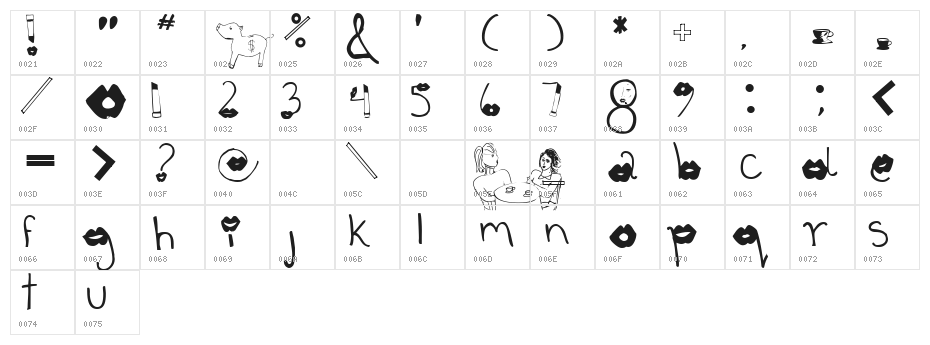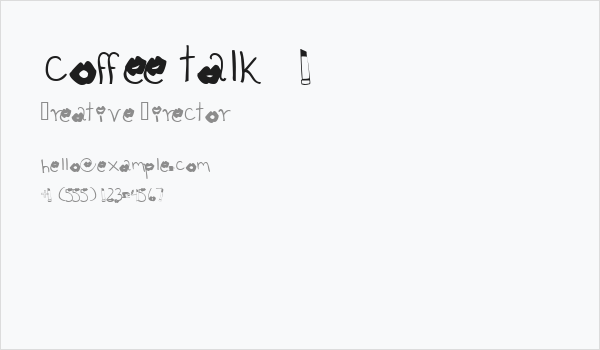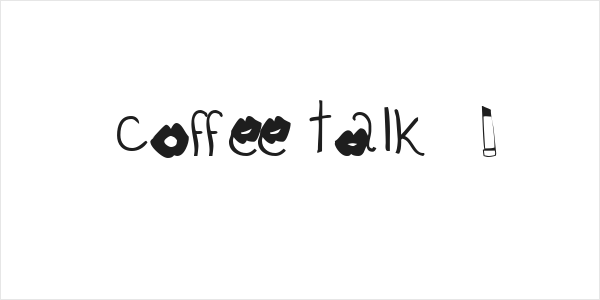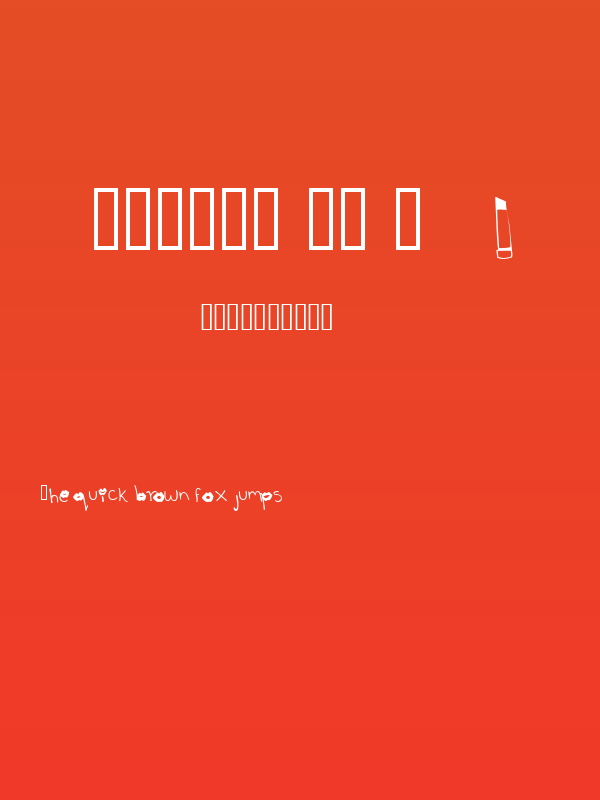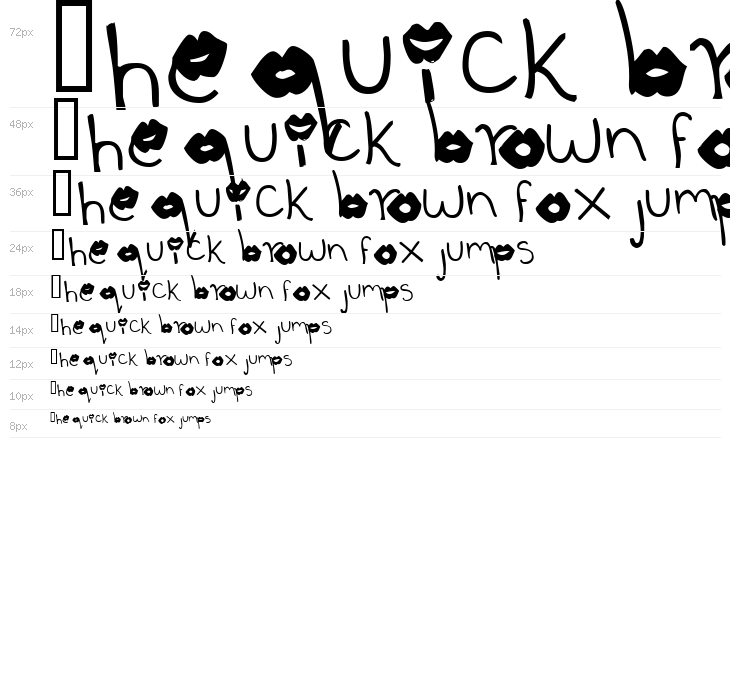
coffee talk 1 Font
coffee talk 1 Description
This font exhibits a playful and artistic style, characterized by its irregular and whimsical letterforms. The lowercase letters are particularly distinctive, with exaggerated curves and varying stroke widths that give a hand-drawn, casual appearance. The numbers and special characters continue this theme, incorporating unique and creative elements that add to the font's charm. The overall design is expressive and full of personality, making it ideal for projects that require a touch of creativity and individuality.
| Use Case | Logos, Posters, Creative projects |
| Proposed Projects | Ideal for creative projects such as children's book illustrations, artistic posters, and unique branding materials. |